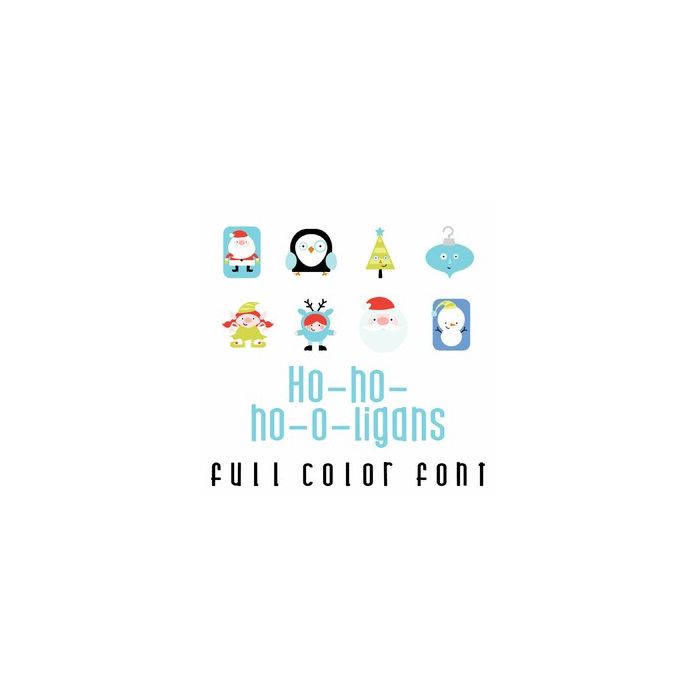
This adorable full color doodlebat font features fun stylized Christmas items and tags. Perfect for cards, crafts, gifts, decor, scrap book pages, planner stickers and more!